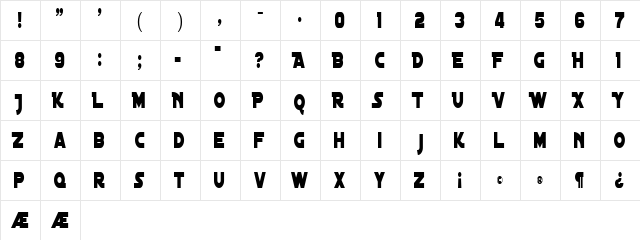
Distant Galaxy Condensed Regular
Design Context for Distant Galaxy Condensed Typeface
Distant Galaxy Condensed takes a measured approach to typography — its balanced proportions and neutral character make it a reliable workhorse for both digital and print work. The condensed width makes it efficient for tight spaces without sacrificing legibility.